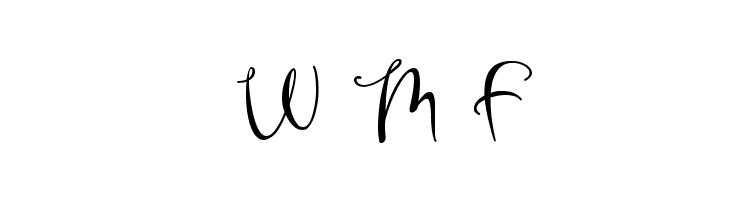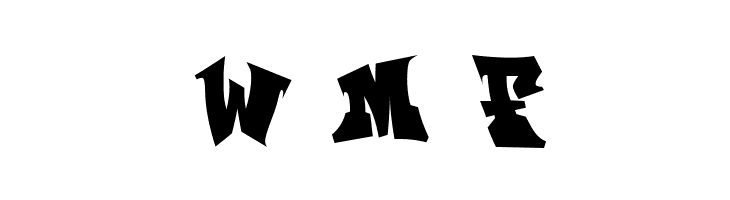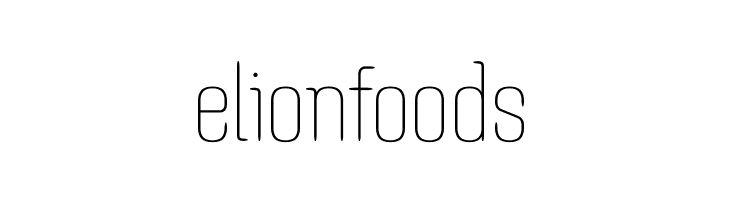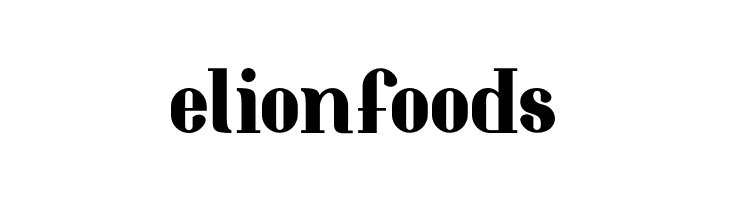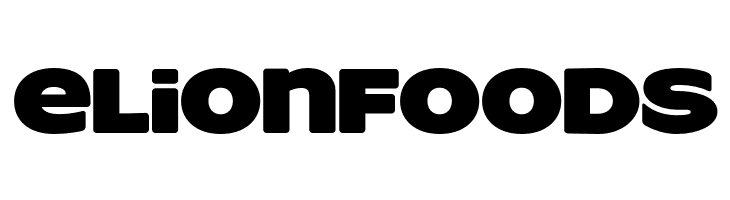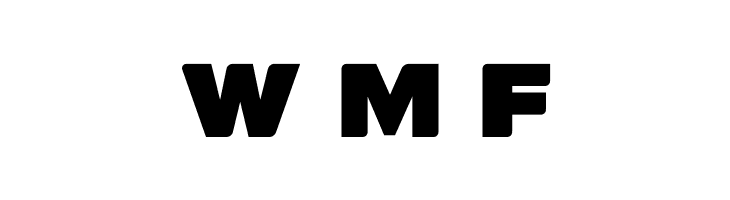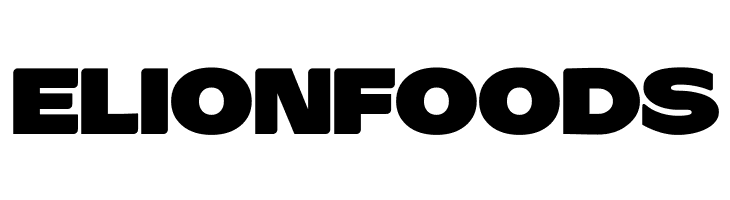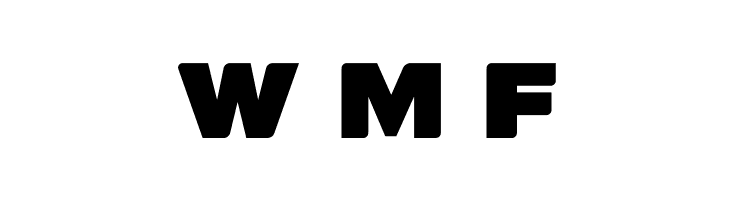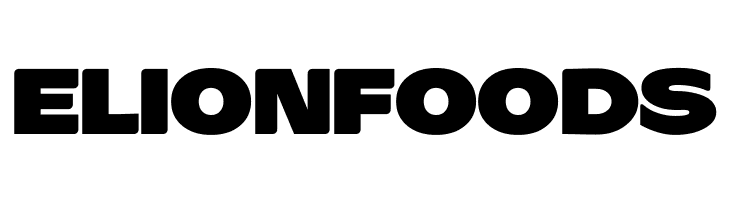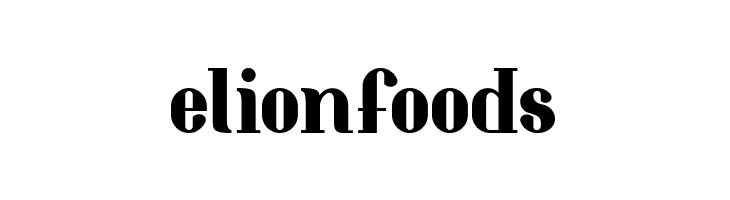
A bold, hand-drawn font with an expressive and playful style.
A dynamic and elegant script font with a handwritten appearance.
A bold, graffiti-inspired font with sharp, angular lines and dynamic shapes.
A modern, minimalist font with tall, narrow characters and consistent stroke width.
A bold, modern serif font with strong, consistent strokes.
A bold, serif font with strong strokes and classic elegance.
An elegant, flowing script font with ornate uppercase and smooth lowercase letters.
A bold, geometric font with strong, impactful letterforms.
A bold, geometric font with a strong, modern presence.
A bold, modern font with thick, uniform strokes and a strong geometric influence.